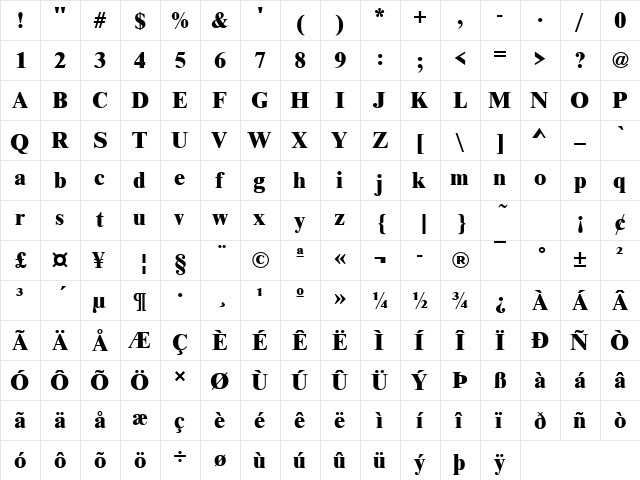
NimbusRomNo9TExtBol Regular
Design Context for NimbusRomNo9TExtBol Typeface
NimbusRomNo9TExtBol takes a measured approach to typography — its balanced proportions and neutral character make it a reliable workhorse for both digital and print work.